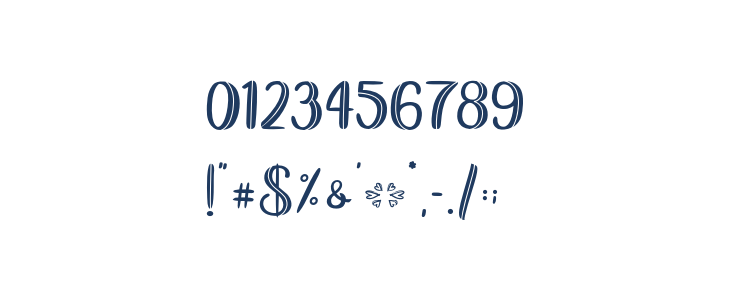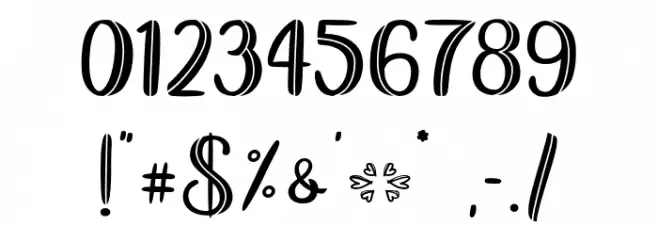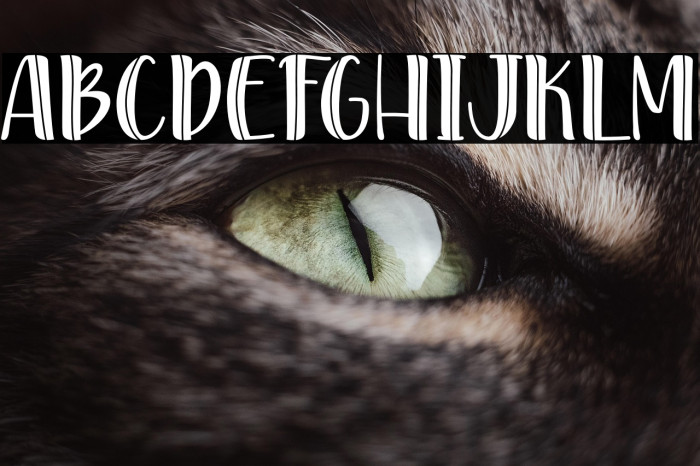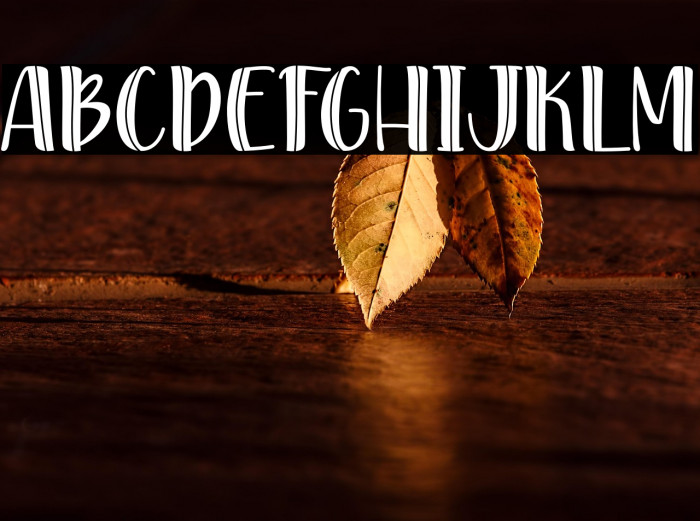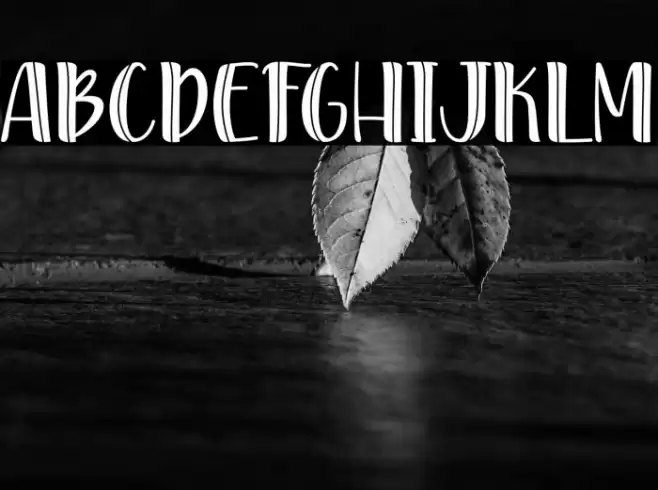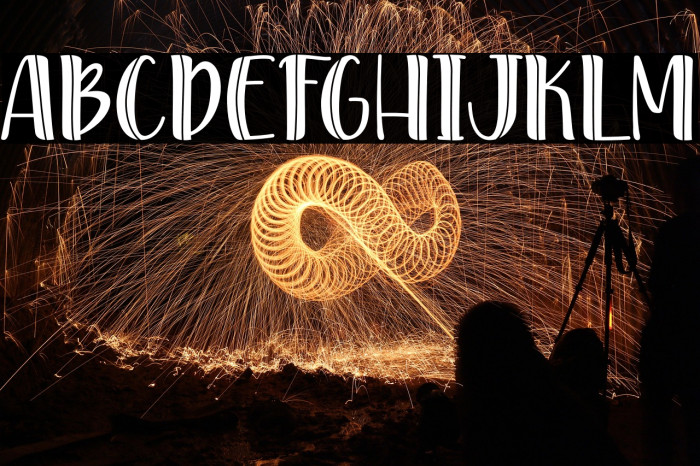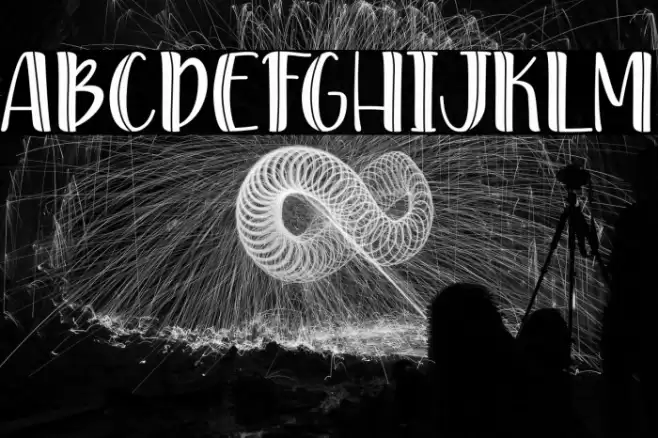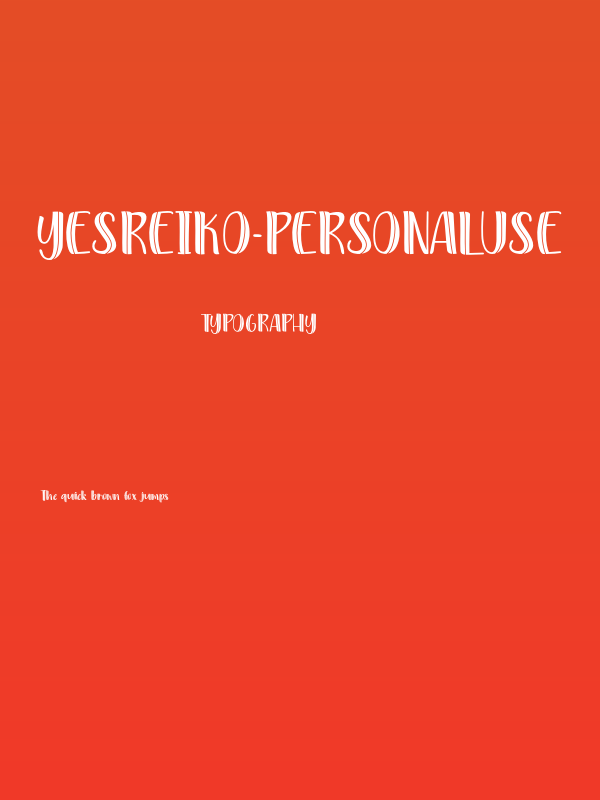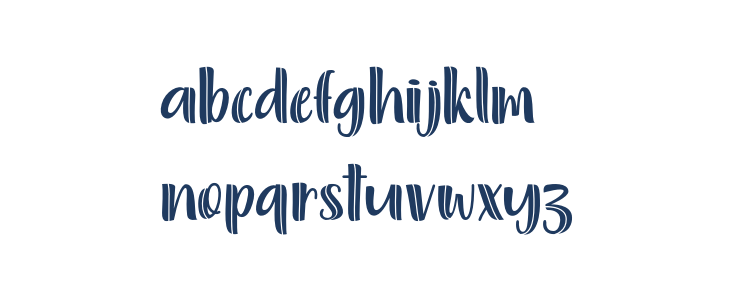
YesReiko-PersonalUse Font
YesReiko-PersonalUse Description
This font features a playful and artistic style, characterized by its bold and expressive letterforms. The uppercase letters are tall and narrow, with a slight slant that adds a sense of movement and dynamism. The lowercase letters maintain a consistent style, with rounded edges and a flowing, cursive-like appearance. The numbers are bold and clear, ensuring readability while maintaining the font's unique aesthetic. Special characters are creatively designed, adding to the font's overall charm. This font is perfect for projects that require a touch of creativity and personality.
| Proposed Projects | Ideal for creative projects such as invitations, greeting cards, posters, and branding materials that require a unique and artistic touch. |